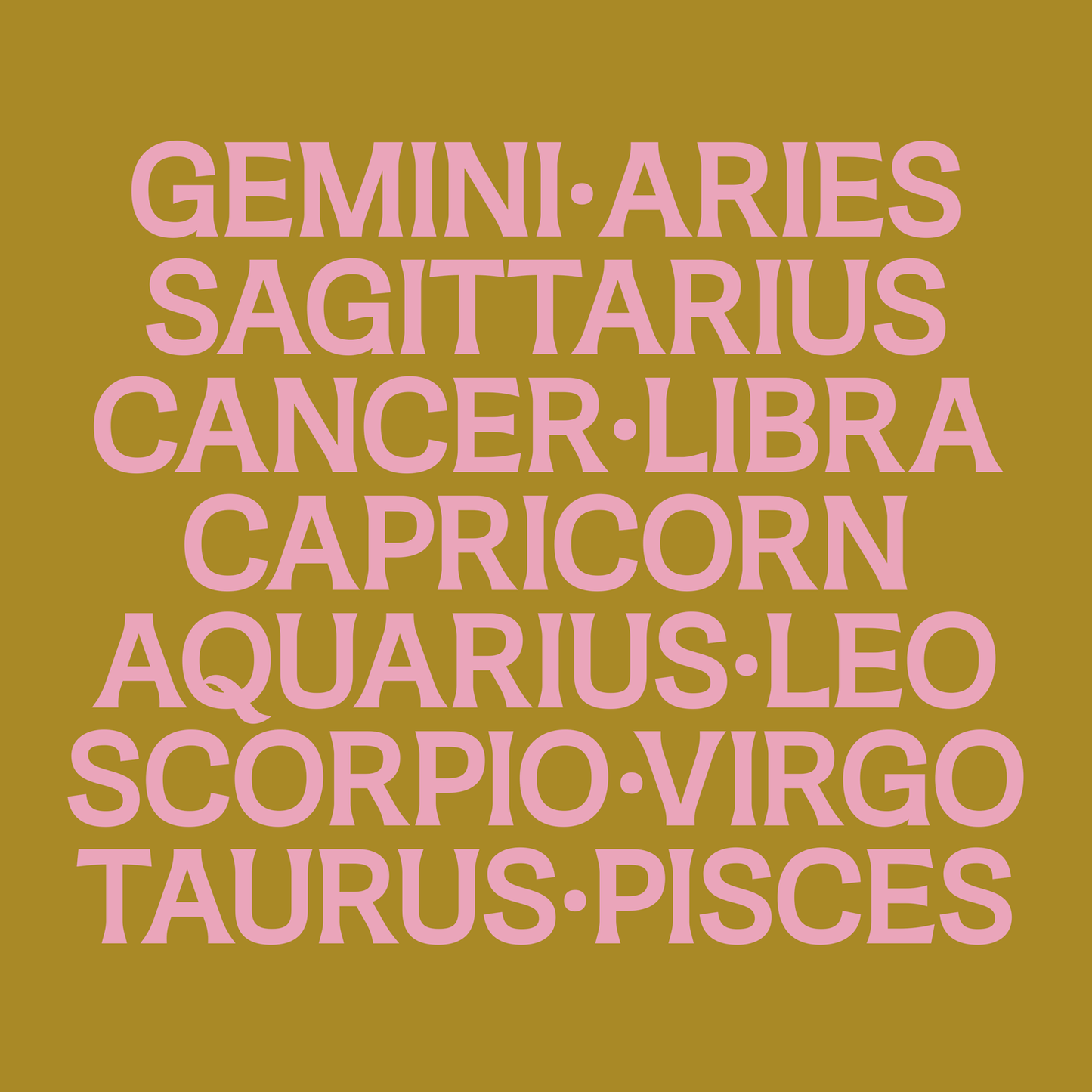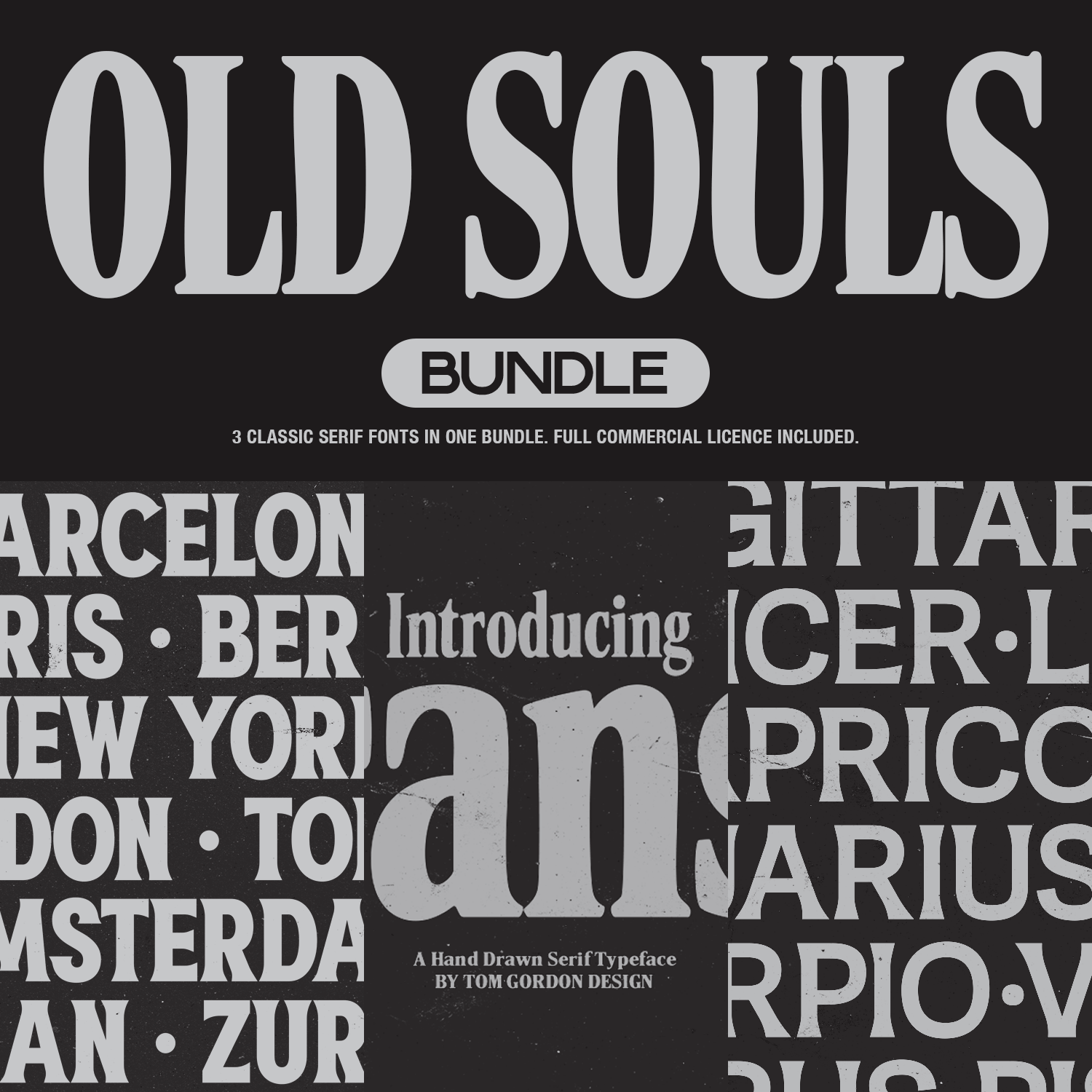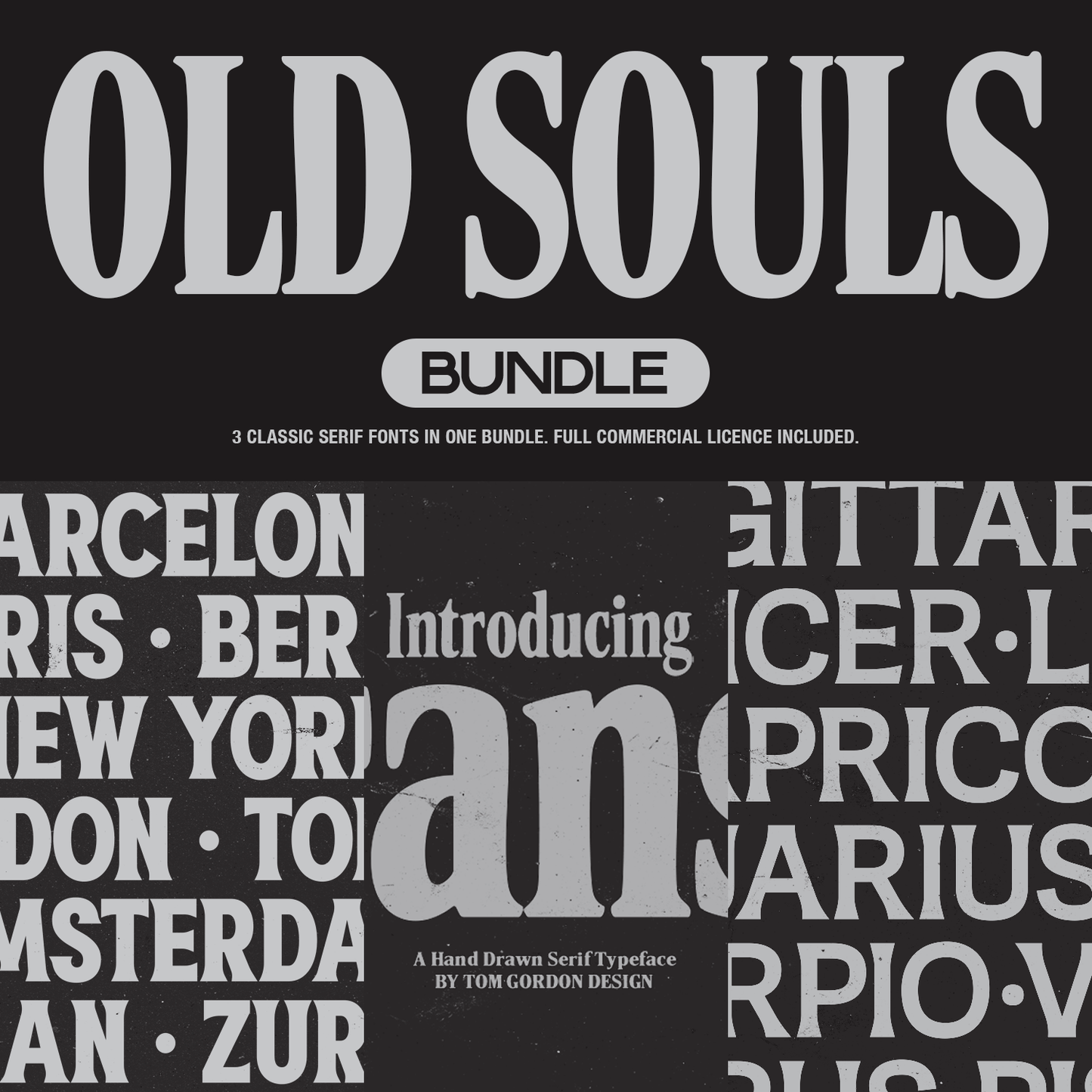
Old Souls Font Bundle
“Old Souls Bundle” includes all 3 of my classic serif fonts! This serif font bundle is the perfect option for designers who like making classic vintage style designs. Perfect for T-shirt and Logo designers.
Included in this bundle:
Transit (2 Styles)
Gemini
Gasoline